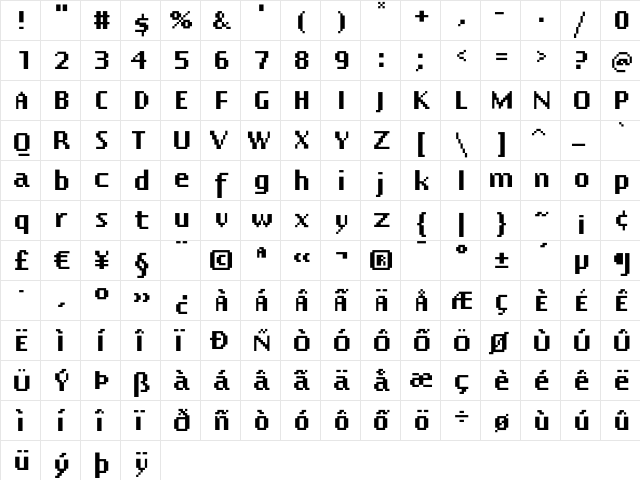
FedraEleven Bold
Design Context for FedraEleven Typeface
FedraEleven is a composed and adaptable typeface that performs quietly and consistently across a wide range of design contexts. Its bold stroke weight gives it real presence on the page.